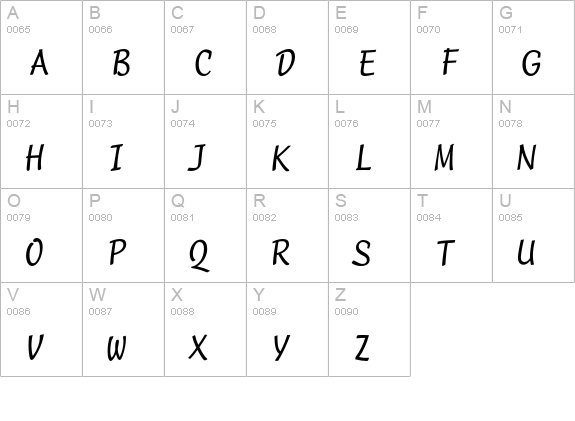
Script 12 Pitch Font Details
Script 12 Pitch font is a stunning and elegant typeface that brings a touch of sophistication to any design project. Its beautifully flowing script style lends itself perfectly to wedding invitations, branding materials, and elegant packaging designs. With its delicate strokes and graceful curves, Script 12 Pitch font exudes a sense of romance and charm. Its versatility allows it to be used for both formal and informal occasions, making it a go-to choice for designers in need of a versatile script font. One of the standout features of Script 12 Pitch font is its legibility. Despite its intricate details, the font remains highly readable even at smaller sizes, ensuring that your message is conveyed clearly and effortlessly. But what truly sets Script 12 Pitch font apart is the fact that it is available for free download at FontsMarket.com. Yes, you read that right - this exquisite font can be freely enjoyed by designers and creatives alike. FontsMarket.com is a reputable platform that offers a vast collection of high-quality fonts, and Script 12 Pitch font is just one of their many treasures. So why wait? Enhance your designs with the timeless beauty of Script 12 Pitch font, and let its elegance and grace captivate your audience. Download it for free at FontsMarket.com today, and unlock a world of endless possibilities for your creative endeavors.